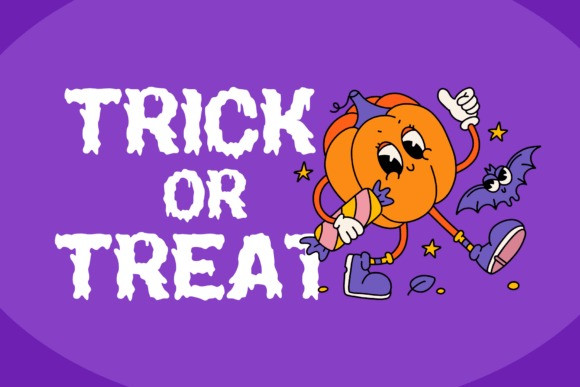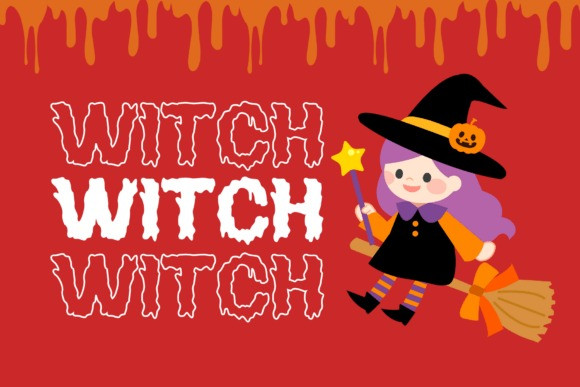
Magical Horror Font
Magical Horror Font the charmingly spooky Halloween font that blends beauty with a hint of fright. Enhance the visual harmony across a wide spectrum of design initiatives, be it captivating logos, impactful branding, engaging social media content, striking ad campaigns, or innovative product designs. The package includes the Magical Horror.otf and Magical Horror.ttf. Dive into a thrilling design journey with Magical Horror and unleash your creativity!